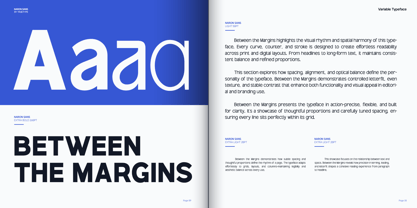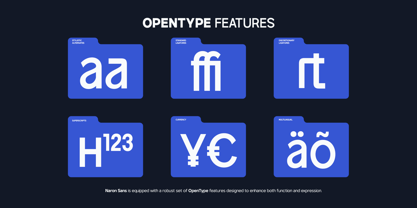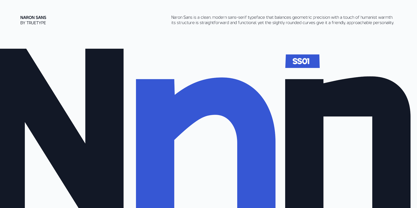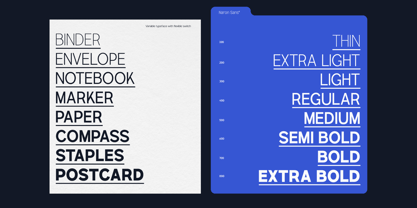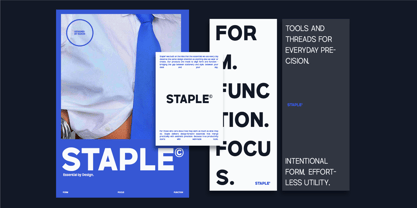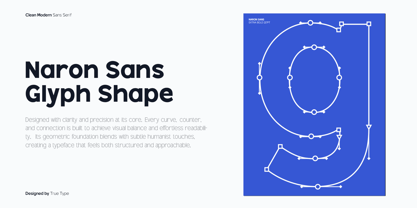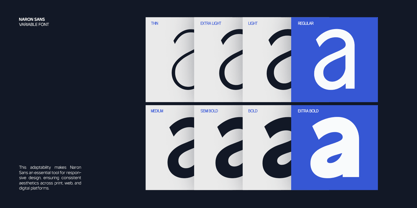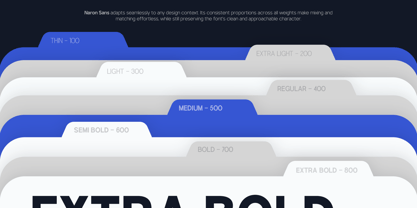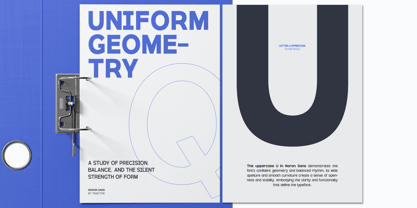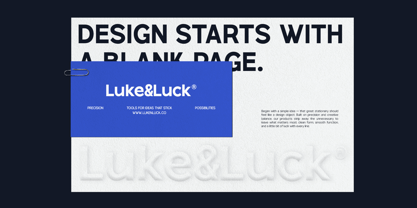
TRT Naron
by True Type Lab
The TRT Naron Font Family was designed by Yusilo Oktaprima Ardani and published by True Type Lab. TRT Naron contains 8 styles and family package options. More about this family
TRT Naron is a bold and modern sans serif typeface rooted in semi-grotesque tradition, reimagined for today’s visual language. With its clean geometry, confident curves, and subtle humanist touches, TRT Naron strikes the perfect balance between clarity and personality. Crafted for versatility, TRT Naron excels across a range of design applications — from digital interfaces and editorial layouts to impactful branding and bold display use. Its consistent rhythm and strong forms ensure readability in both large and small sizes, while its unique ligatures and refined letterforms offer a distinctive visual voice. Whether you’re building a tech brand, designing UI/UX content, or creating modern packaging, TRT Naron provides the professional edge you need. It’s not just a font — it’s a toolkit for expressive, modern typography.